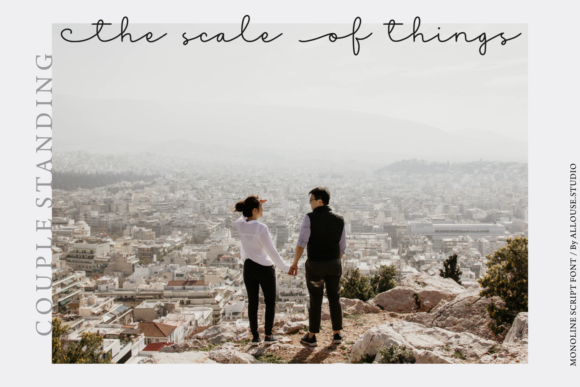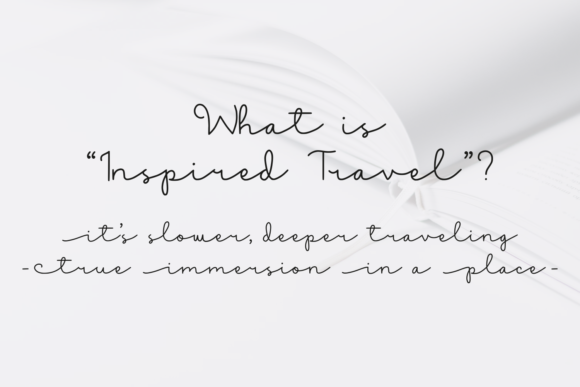
Ancukaseyo Font
Ancukaseyo is an exquisite handwritten font, masterfully designed to become a true favorite. It maintains its classy calligraphic influences while feeling contemporary and fresh. Fall in love with it and bring your projects to the highest levels!